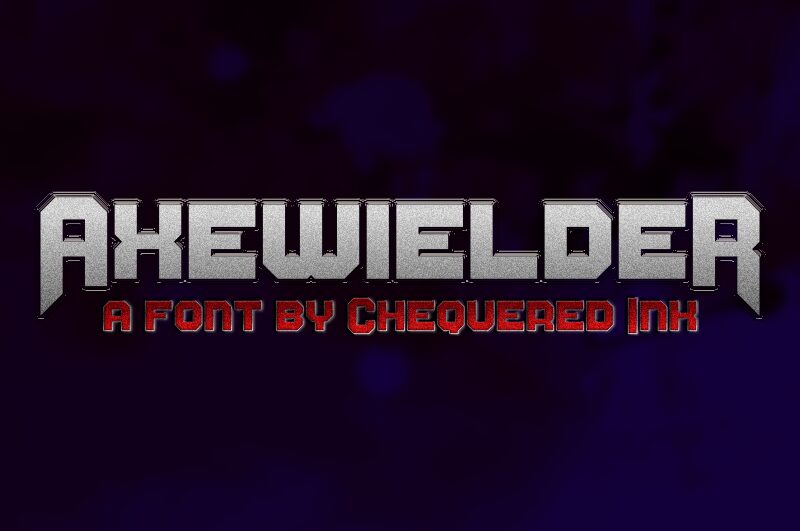
AxewieldeR Regular
Axewielder font by Chequered Ink is a bold, modern gothic typeface that captures attention with its striking aesthetic. Characterized by its hefty presence and edgy design, Axewielder stands out in any creative project. The angular and robust letterforms evoke strength and power, making it ideal for dynamic branding or eye-catching headlines.
Perfect for adventurous designs, this free font excels in gaming visuals, album covers, or any setting that demands an intense visual impact. Embrace the boldness of Axewielder and download it today to enhance your design arsenal with a touch of modern gothic flair.